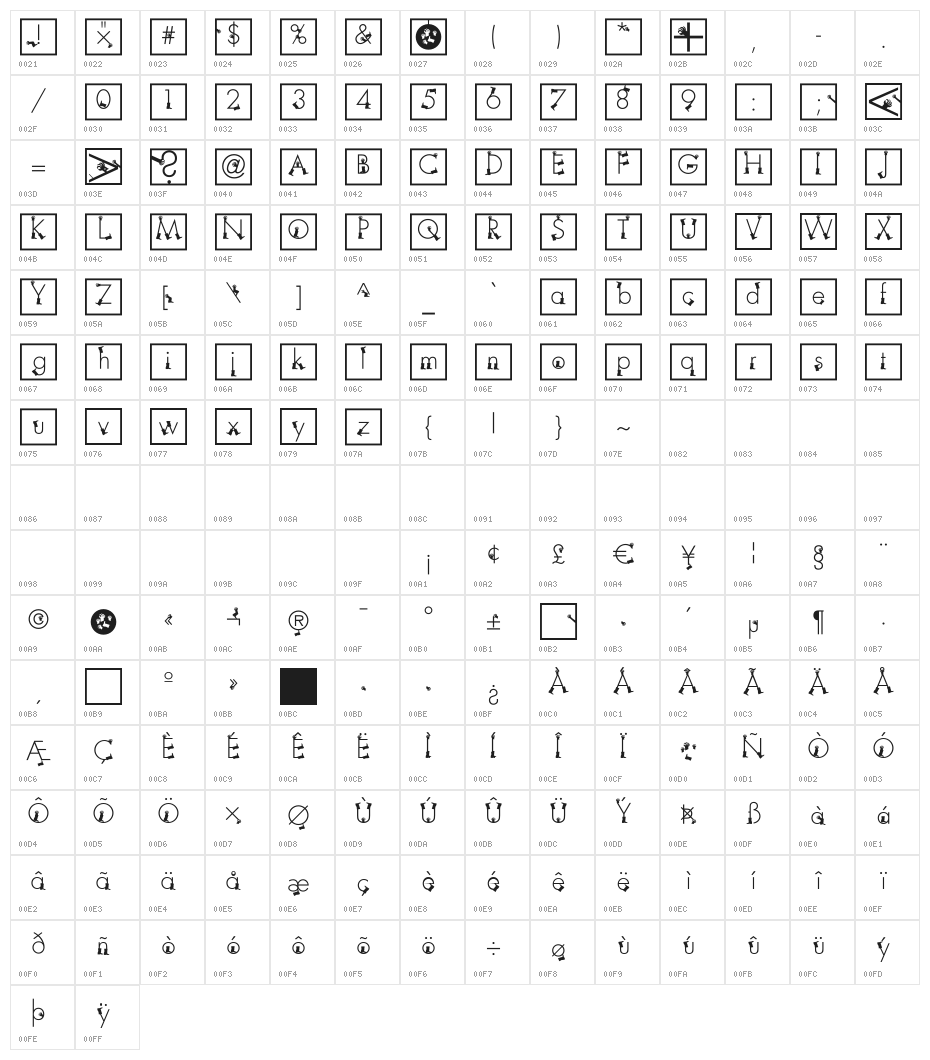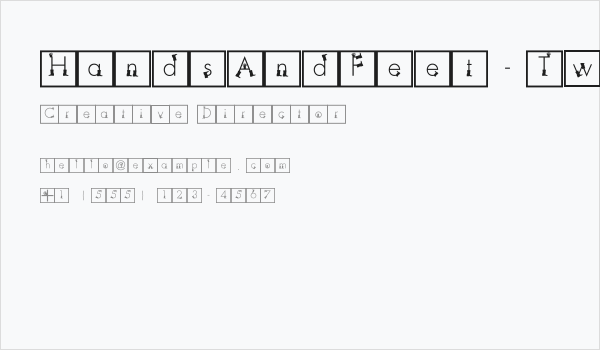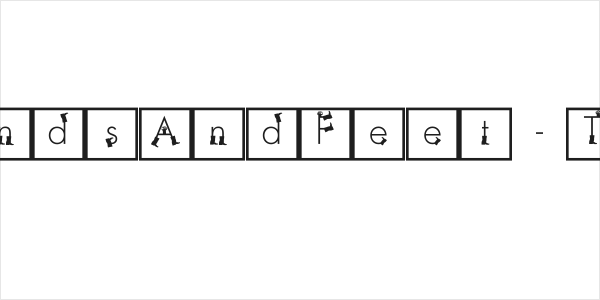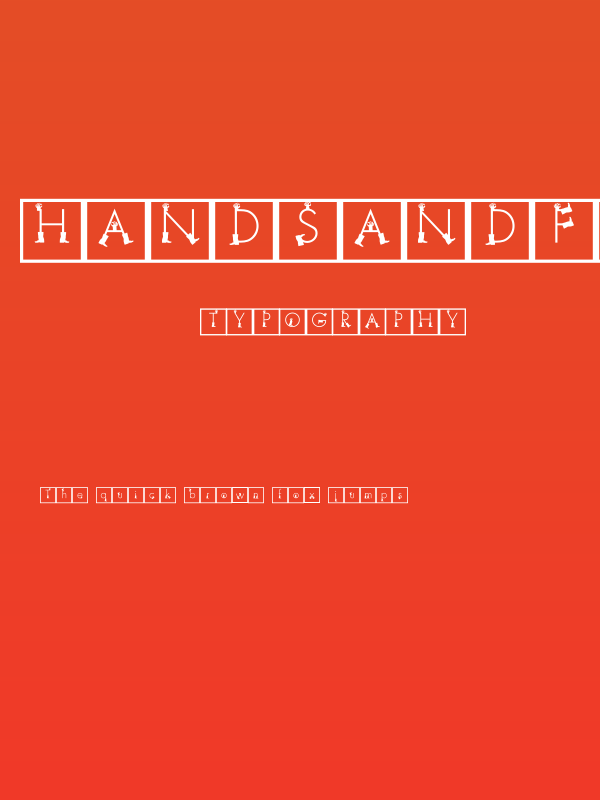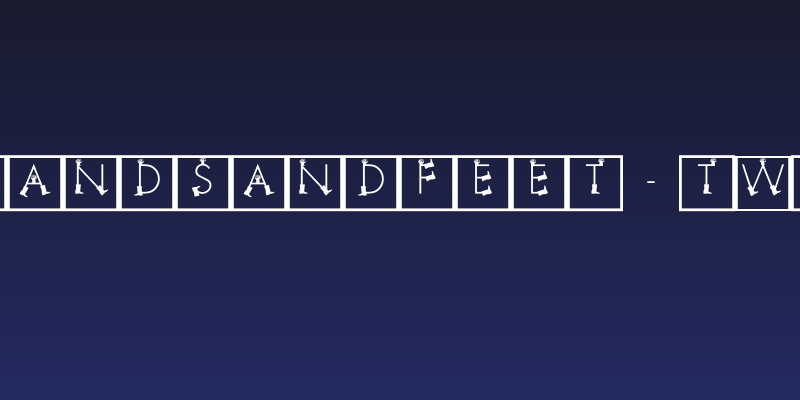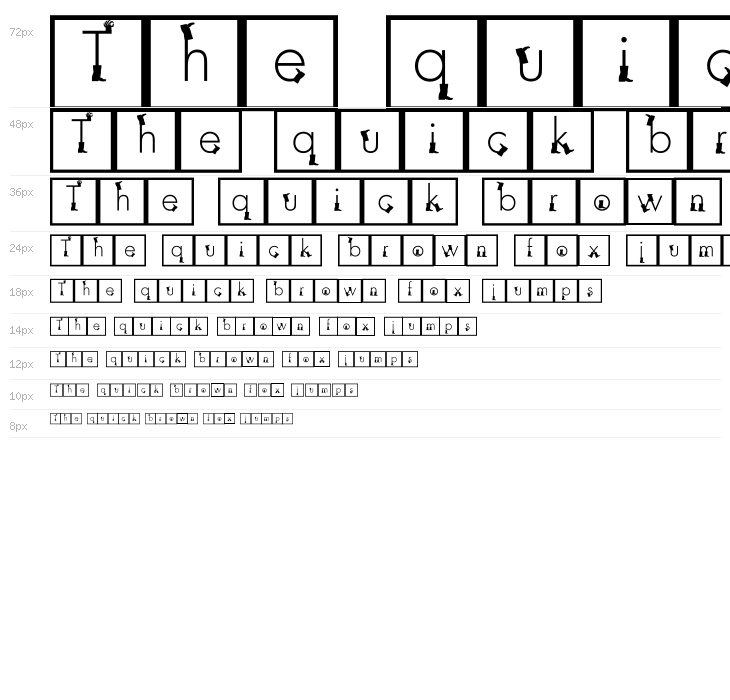
HandsAndFeet-Two Font
HandsAndFeet-Two Description
This font features a playful and whimsical design, incorporating elements that resemble hands and feet into each character. The letters are uniquely crafted, with each one having a distinct personality and charm. The uppercase and lowercase letters maintain a consistent style, while the numbers and special characters follow the same playful theme. The font's design is highly decorative, making it suitable for creative and artistic projects. The characters are well-spaced, ensuring readability despite their intricate details.
| Proposed Projects | Ideal for children's books, playful branding, creative posters, and artistic invitations. |